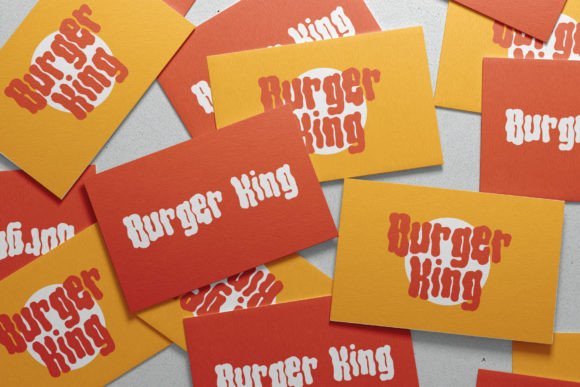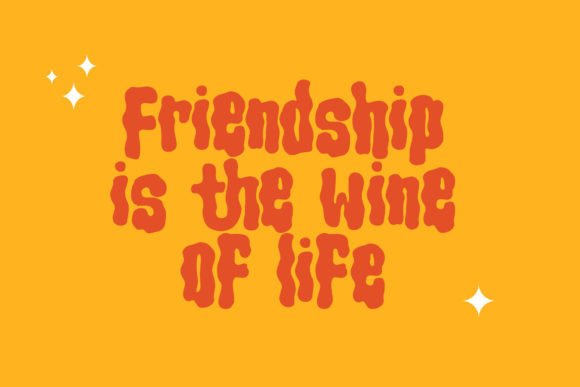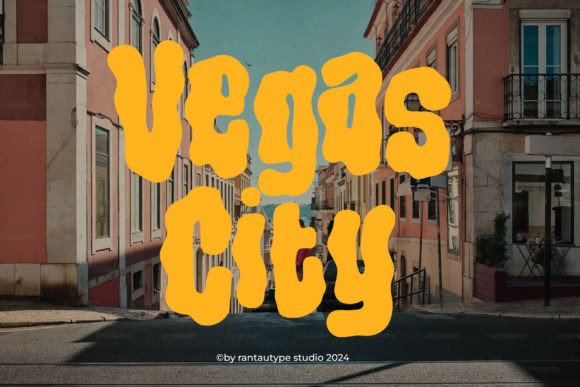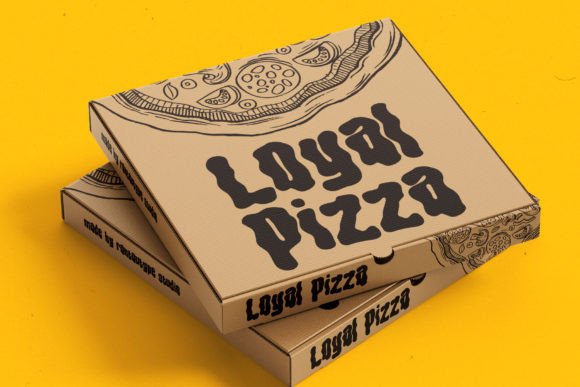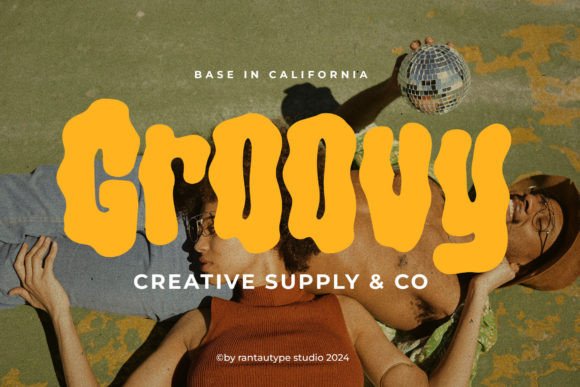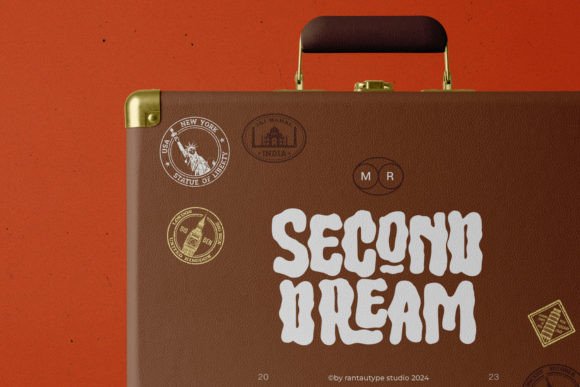
Introduction to Groovy Dream Font
Groovy Dream is a playfully nostalgic typeface with unique and sinuous shape.
Groovy dream bring vintage fun retro to become favorite designed, this font has the potential to bring each of your creative ideas to the highest level .